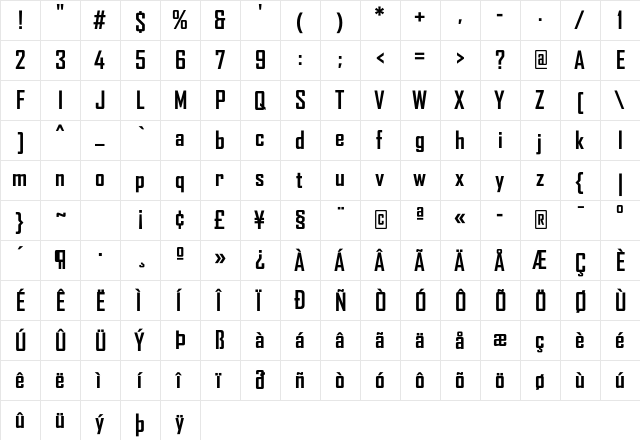
AgencyFB Bold Regular Font Preview
AgencyFB Bold Regular
AgencyFB Bold Regular Font Details
| Foundry | The Font Bureau, Inc. |
Design Context for AgencyFB Bold Typeface
AgencyFB Bold takes a measured approach to typography — its balanced proportions and neutral character make it a reliable workhorse for both digital and print work. Its bold stroke weight gives it real presence on the page.